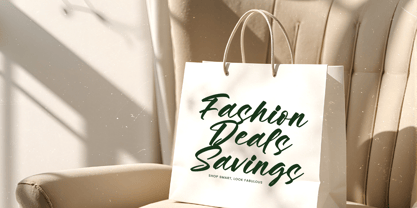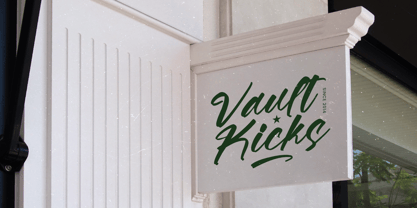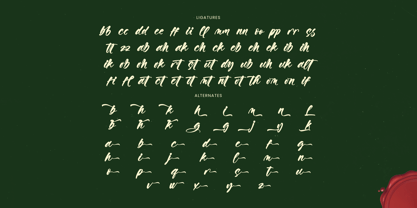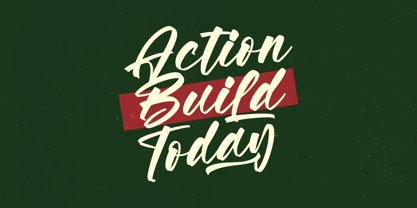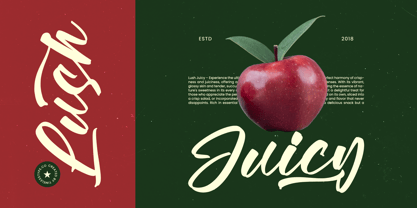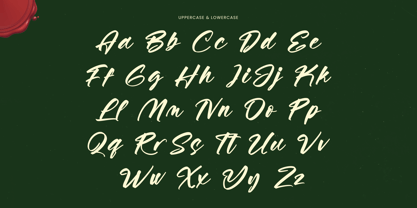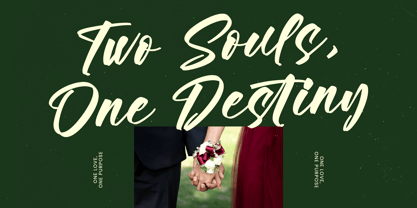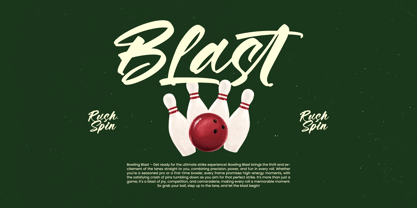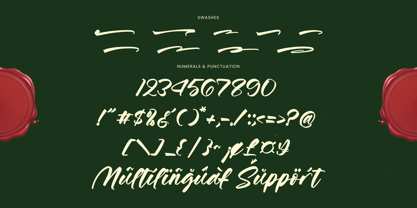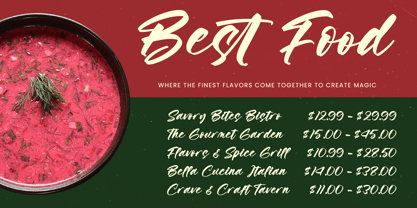
Vaughn Daniel
The Vaughn Daniel Font Family was designed by Heru Utama Putra and published by Stylishtype Studio. Vaughn Daniel contains 2 styles.
Vaughn Daniel - Bold Handwritten Font , from Stylishtype, Suitable for any projects such as: logos, branding projects, homeware designs, product packaging, mugs, quotes, posters, shopping bags, t-shirts, book covers, name card, invitation cards, greeting cards, label, photography, watermark, special events, and all your other luxury and beautiful projects that need a Luxury Script taste.